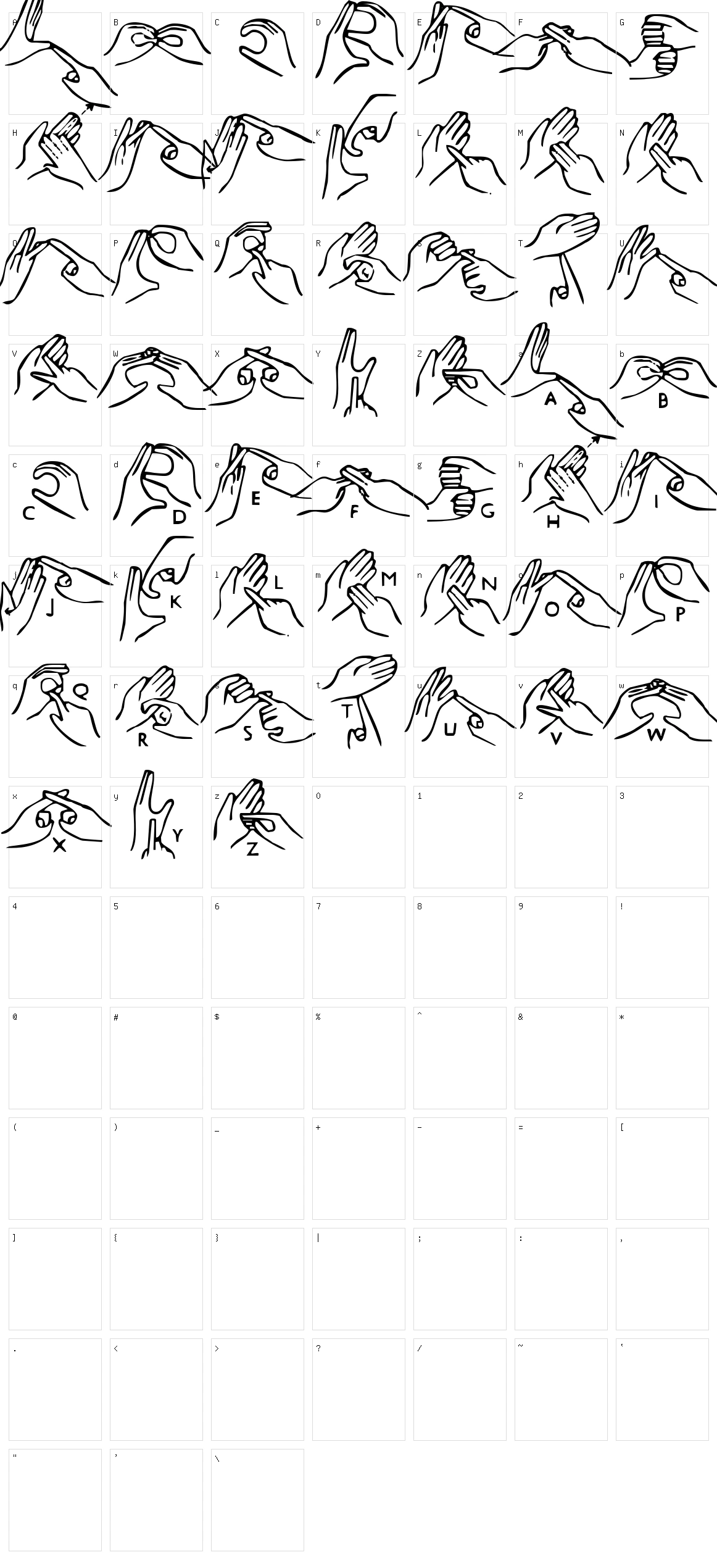
Helping Hands
This is a dingfont, illustrating the manual alphabet used in sign language to sign individual letters.
The lower case shows each hand gesture along with its corresponding letter. The upper case only shows the applicable hand sign.